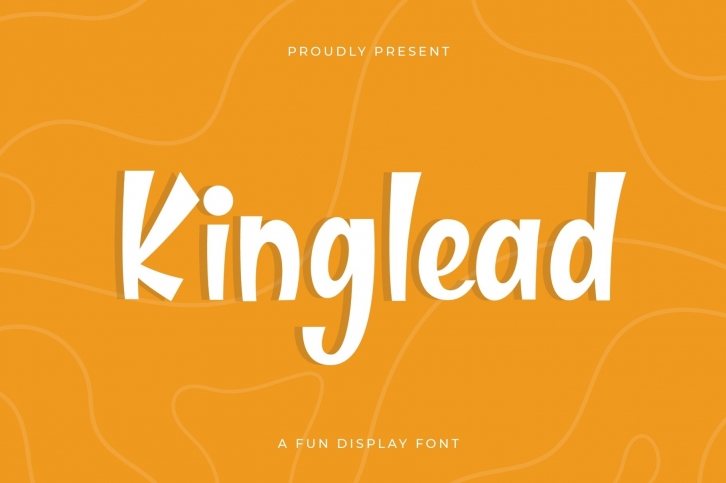
Kinglead is a beautiful font that was designed by Almarkha Type. It's a great choice for designers and creatives who need such a font. It was released on October 18, 2020 and the file size is 14.69 MB. Kinglead may give a more youthful, expressive and casual look to your project. It is a very beautiful, refined, elegant, and high-quality font.